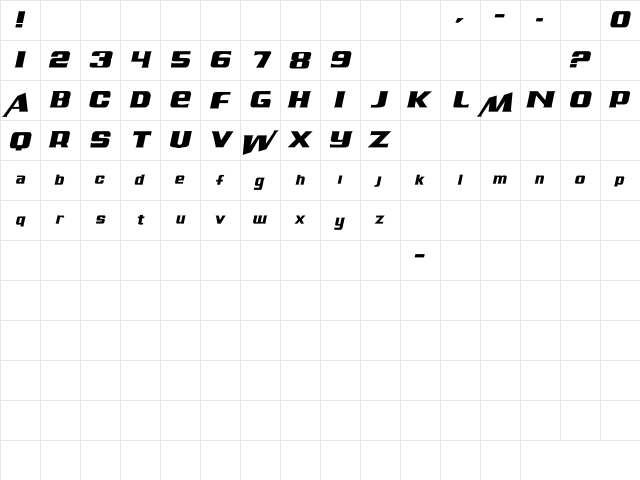
LHF Cool Blue Italic
| Foundry | Chuck Davis for Letterhead Fonts |
| Designer | Chuck Davis |
Design Context for LHF Cool Blue Typeface
LHF Cool Blue offers clean, dependable letterforms without strong stylistic allegiance, making it a practical choice for designers who need flexibility. The slanted form adds forward momentum and visual energy.
Pro Tip: Try LHF Cool Blue for annotation and caption copy alongside an upright companion — the contrast in angle creates a dynamic but ordered typographic system.